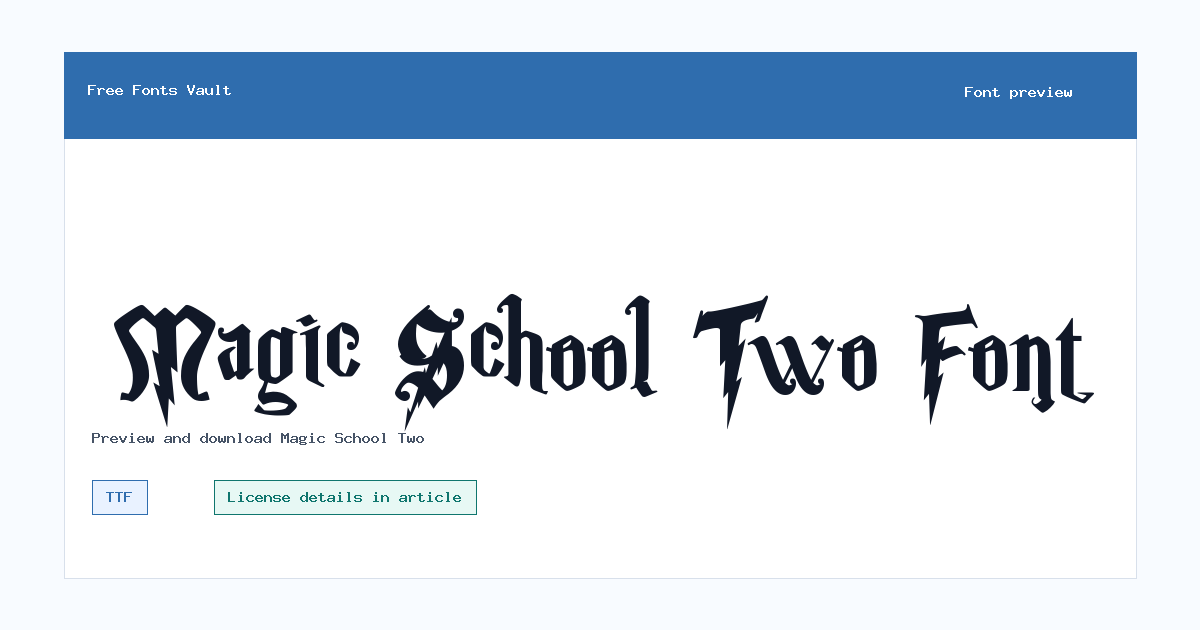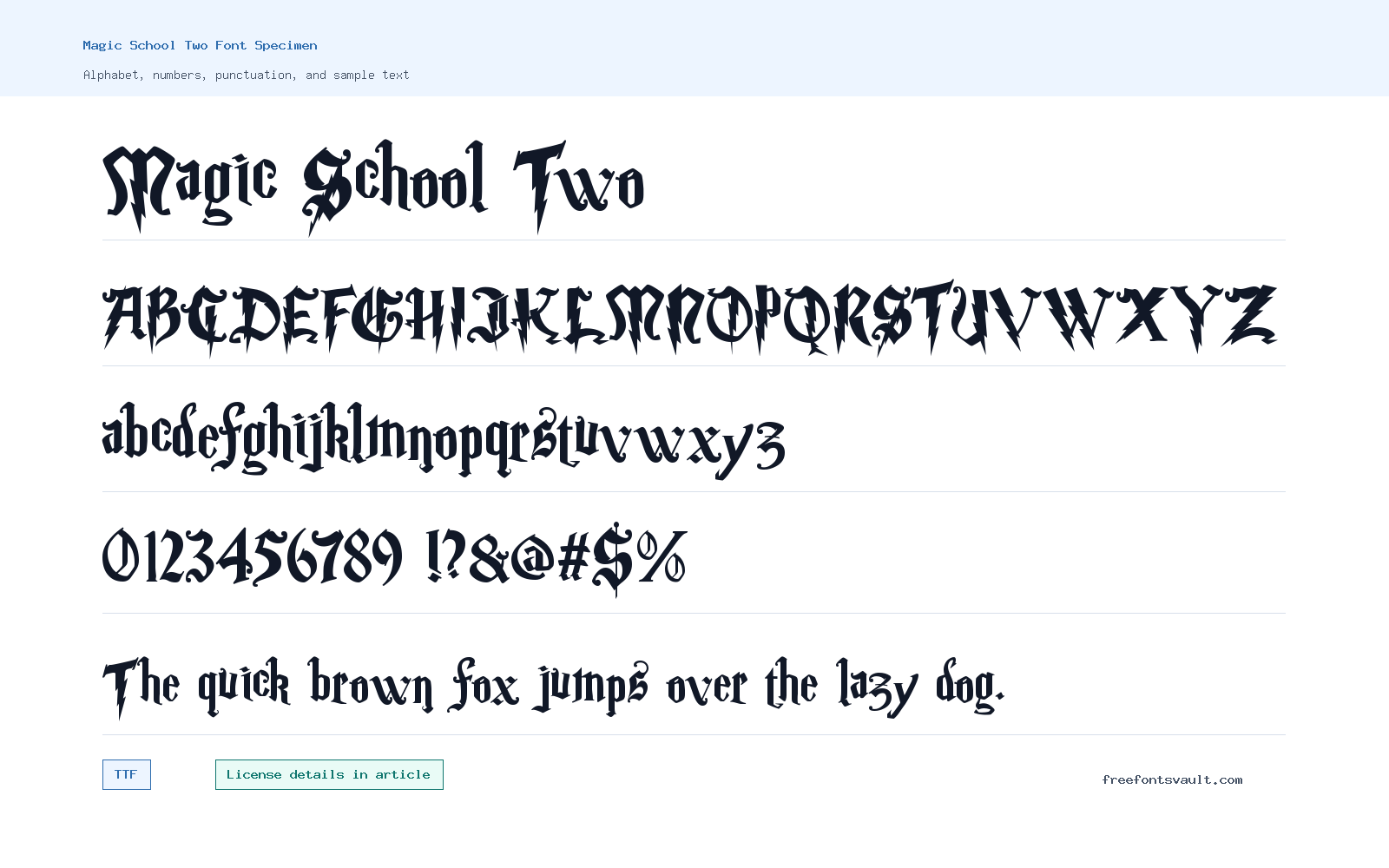
Magic School Two
Magic School Two is a fantasy-style display font with sharp blackletter shapes, uneven points, and a dramatic school-of-magic feel. It is best used for short titles, themed graphics, invitations, posters, and other designs where the lettering can stay large.
About Magic School Two
The letters in Magic School Two have a gothic base with jagged cuts, pointed strokes, curled details, and high contrast between thick and thin shapes. In preview, the capitals feel especially decorative, while the lowercase keeps the same dark, storybook tone. The numbers also match the style, so simple dates, chapter numbers, or event details can sit beside the title without looking out of place.
Use Magic School Two when you want a strong fantasy headline rather than a quiet reading font. It can work well for Halloween artwork, school-themed party designs, book-cover mockups, game titles, stickers, banners, and social graphics. Test your exact words in the preview before downloading, because very ornate letters can become harder to read when used small, tightly spaced, or in long sentences. For cleaner layouts, pair it with a plain serif or sans serif font for body text and keep Magic School Two for the main title or accent words.
For best results, keep the wording short and let the style carry the mood. A fantasy title, a house name, a chapter heading, or a party headline will usually read better than a full sentence. If the design uses a dark background, add enough size and contrast so the pointed strokes do not close up on smaller screens.
- Decorative gothic display style with sharp points, curled accents, and high-contrast strokes
- Strong uppercase forms for fantasy-style names, titles, and short decorative labels
- Fantasy, magic-school, Halloween, gothic, and storybook-style headlines
- Posters, invitations, book-cover mockups, game graphics, stickers, and short display text
- Large title treatments where ornate gothic shapes can stay readable
Keep the font large, use generous spacing, and preview your final wording before export. Avoid using it for paragraphs, small captions, legal text, or accessibility-critical information. If the design needs extra clarity, use Magic School Two for the headline and choose a simpler companion font for the rest. Check the preview at the final size, especially if the text includes narrow letters, repeated capitals, or decorative punctuation.
What kind of font is Magic School Two?
Magic School Two is a decorative fantasy display font with gothic, pointed letterforms. It is meant for titles and short text rather than long reading.
Is Magic School Two good for body text?
No. The ornate shapes are better at large sizes. For paragraphs or small labels, pair it with a simpler, more readable font.